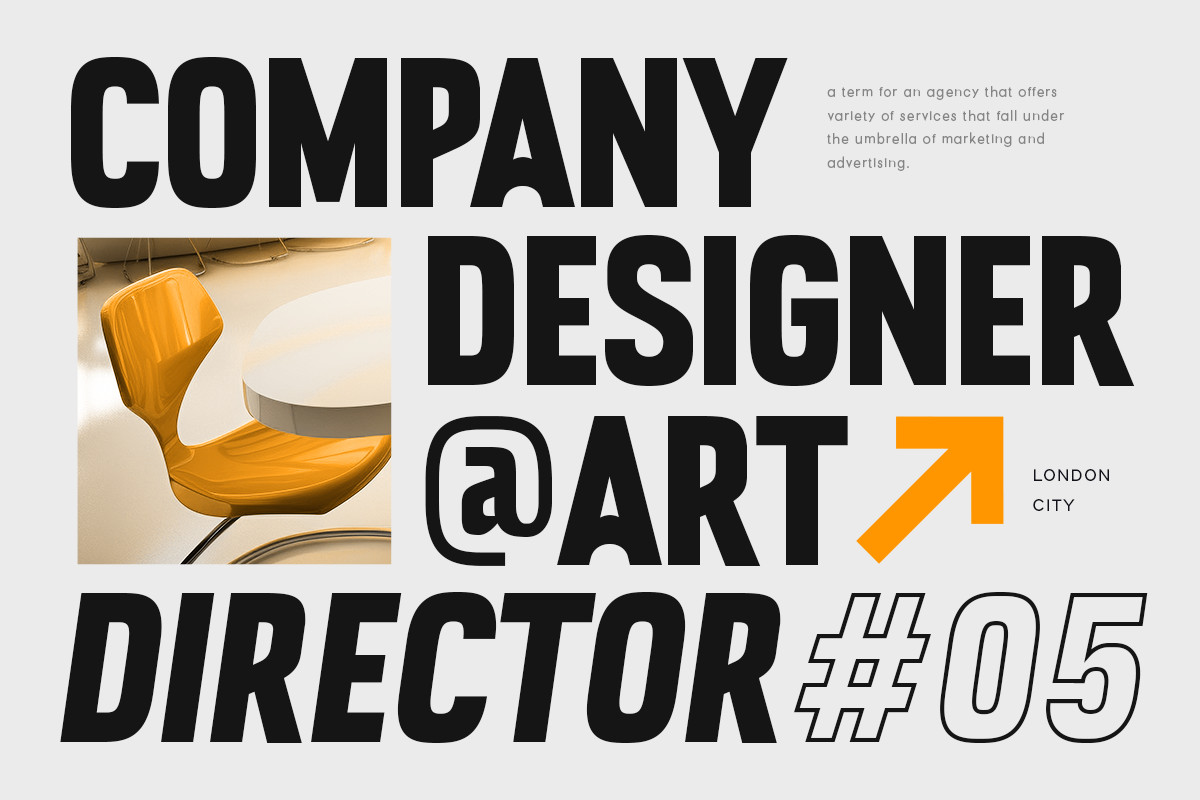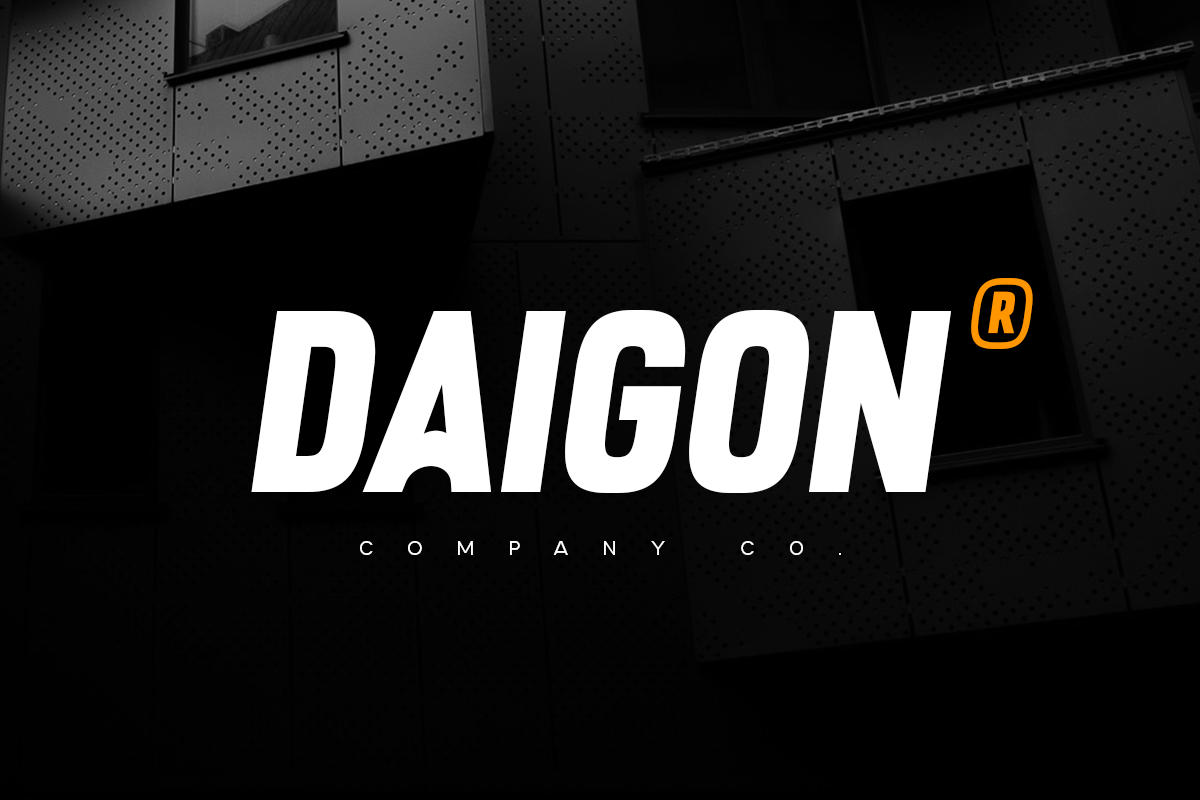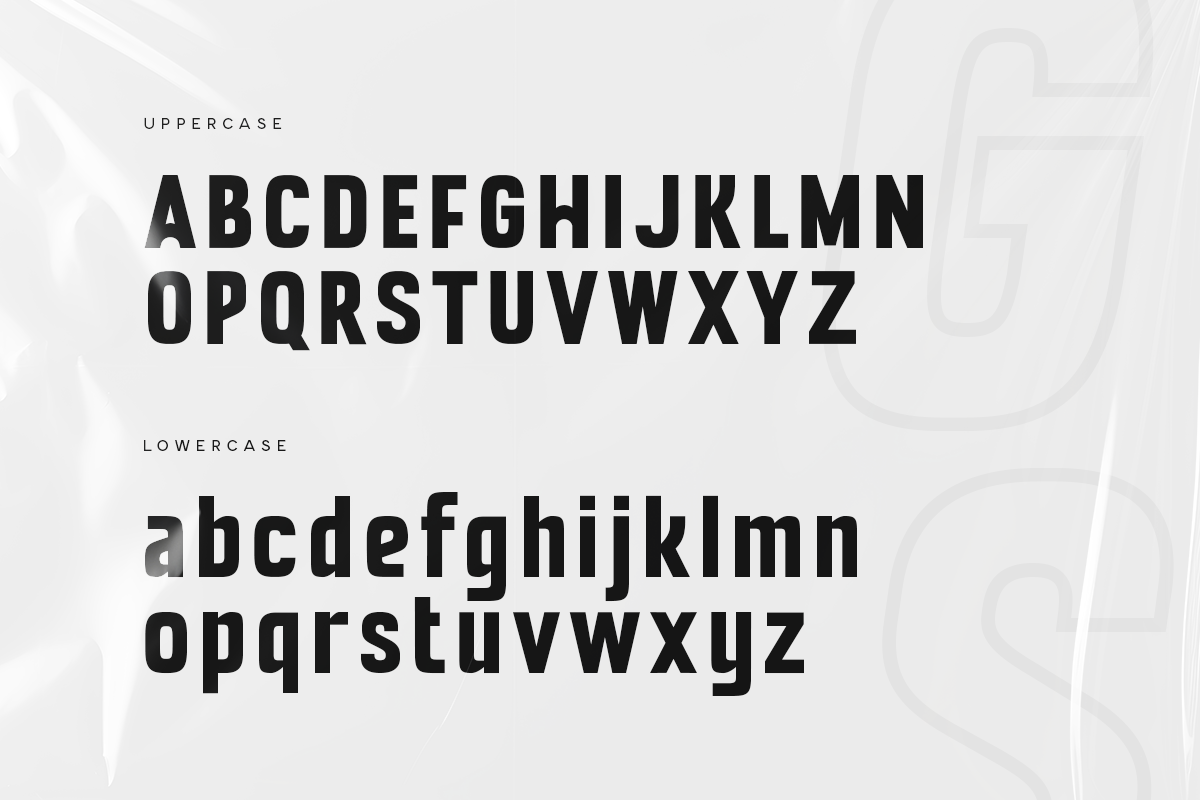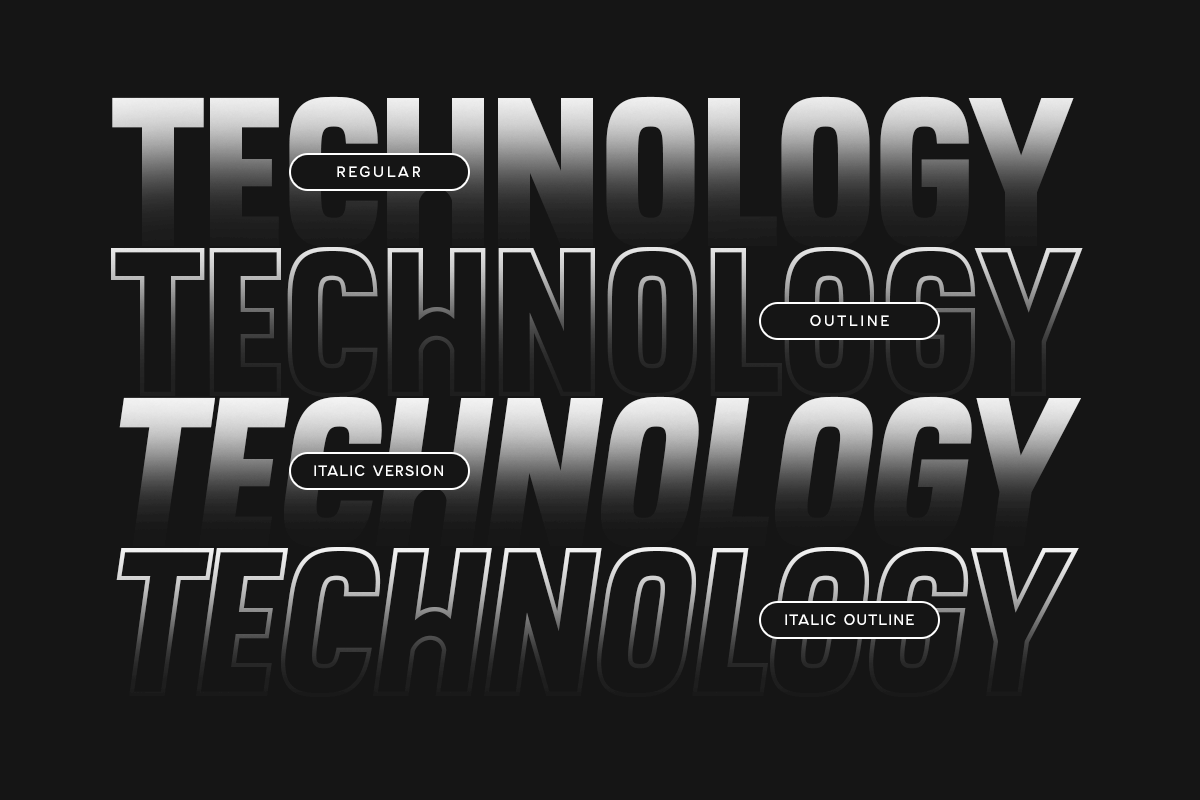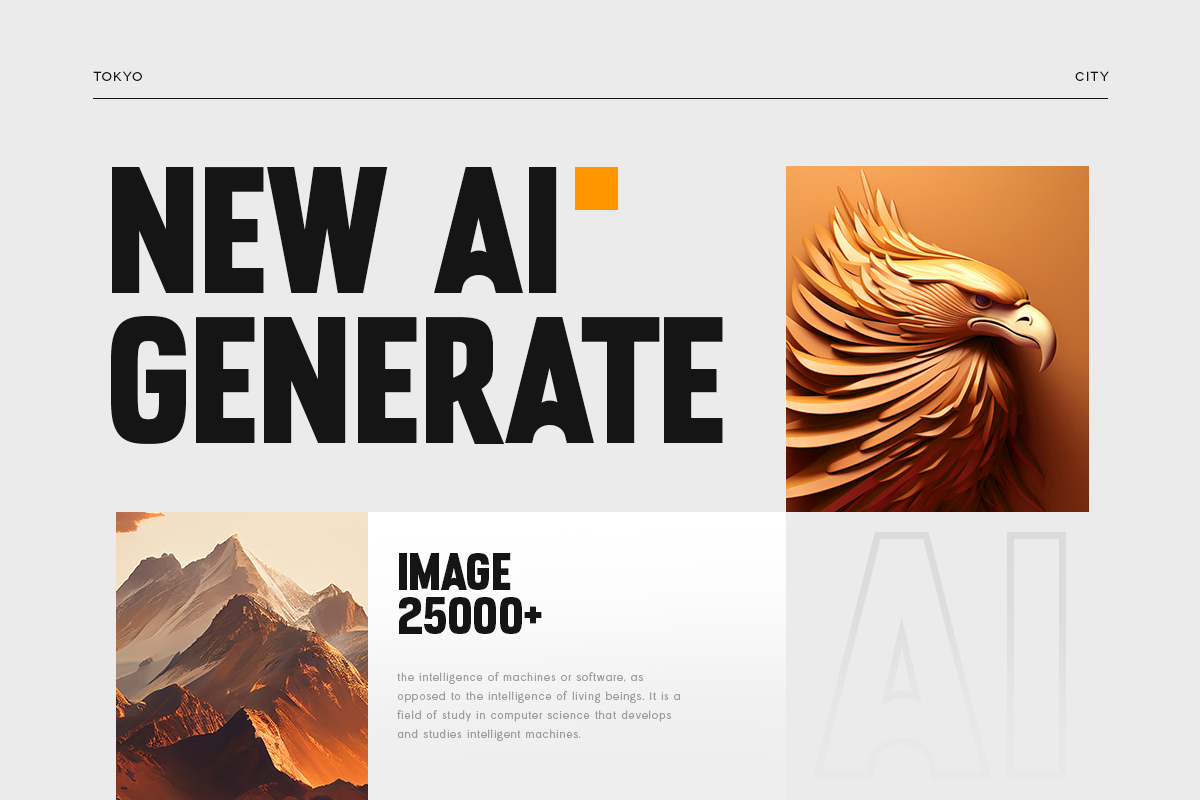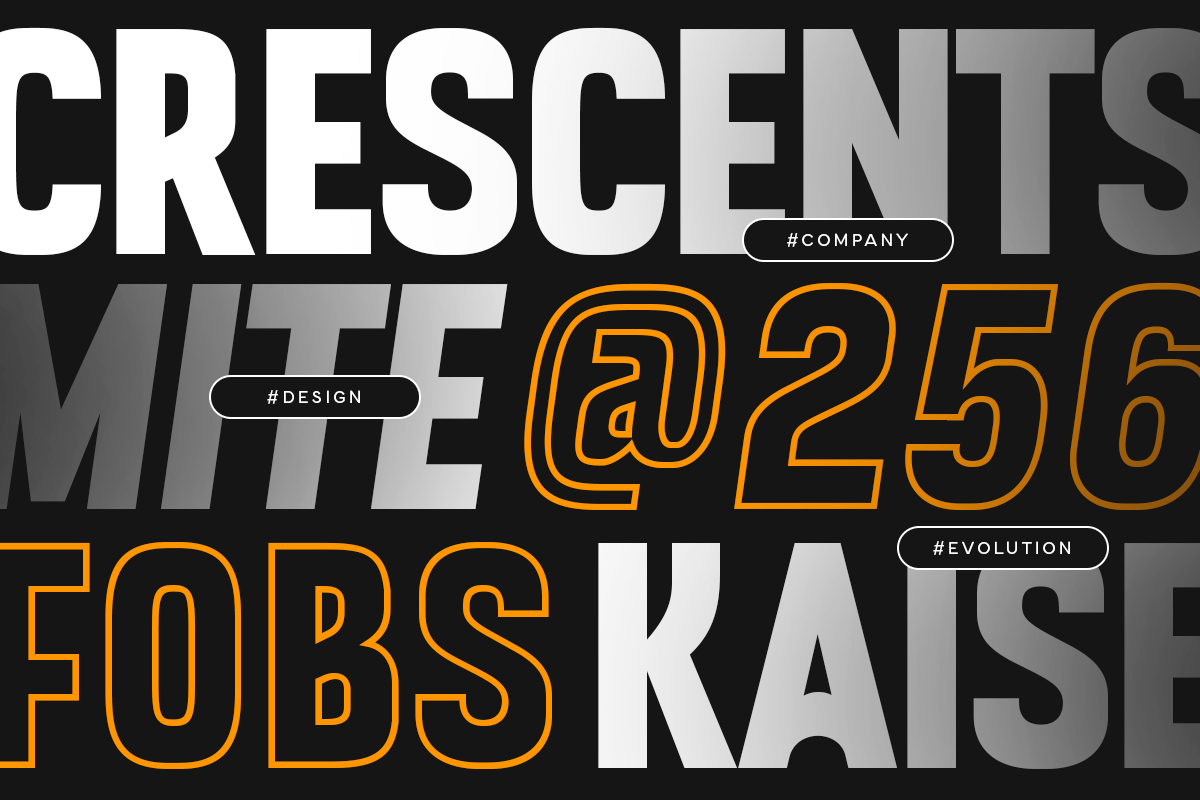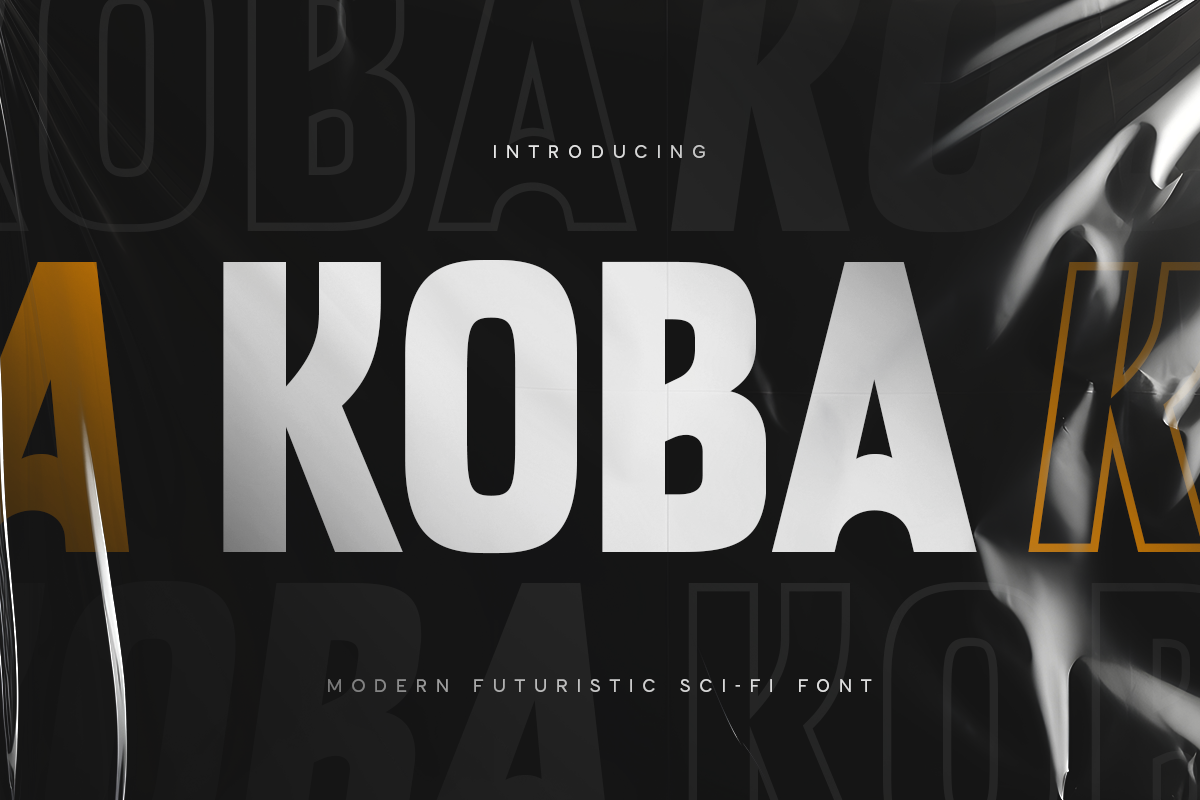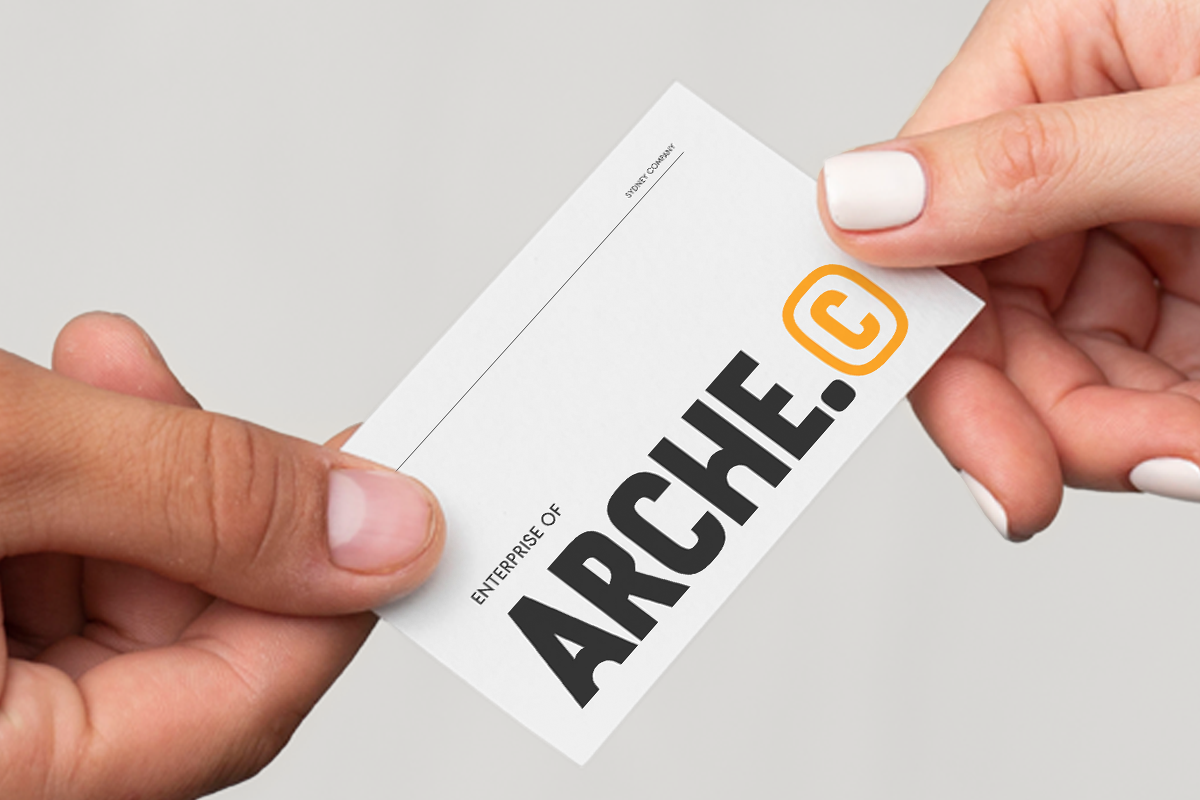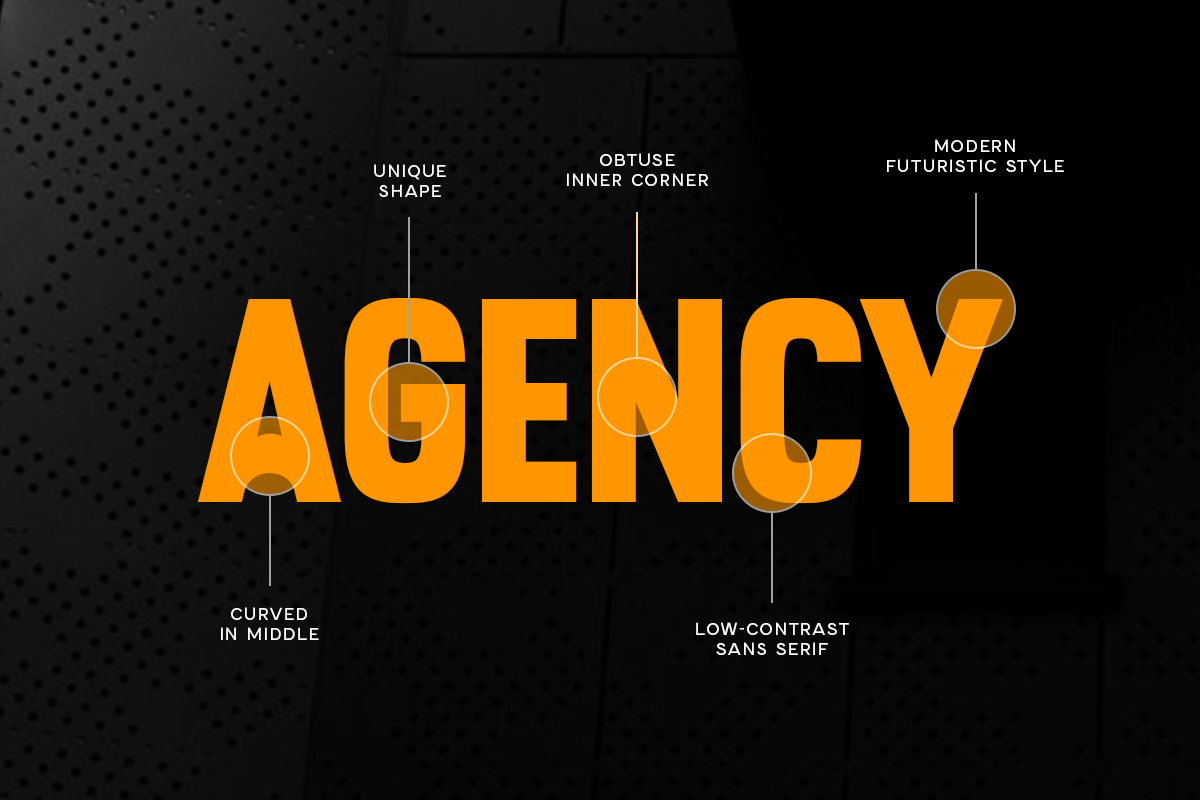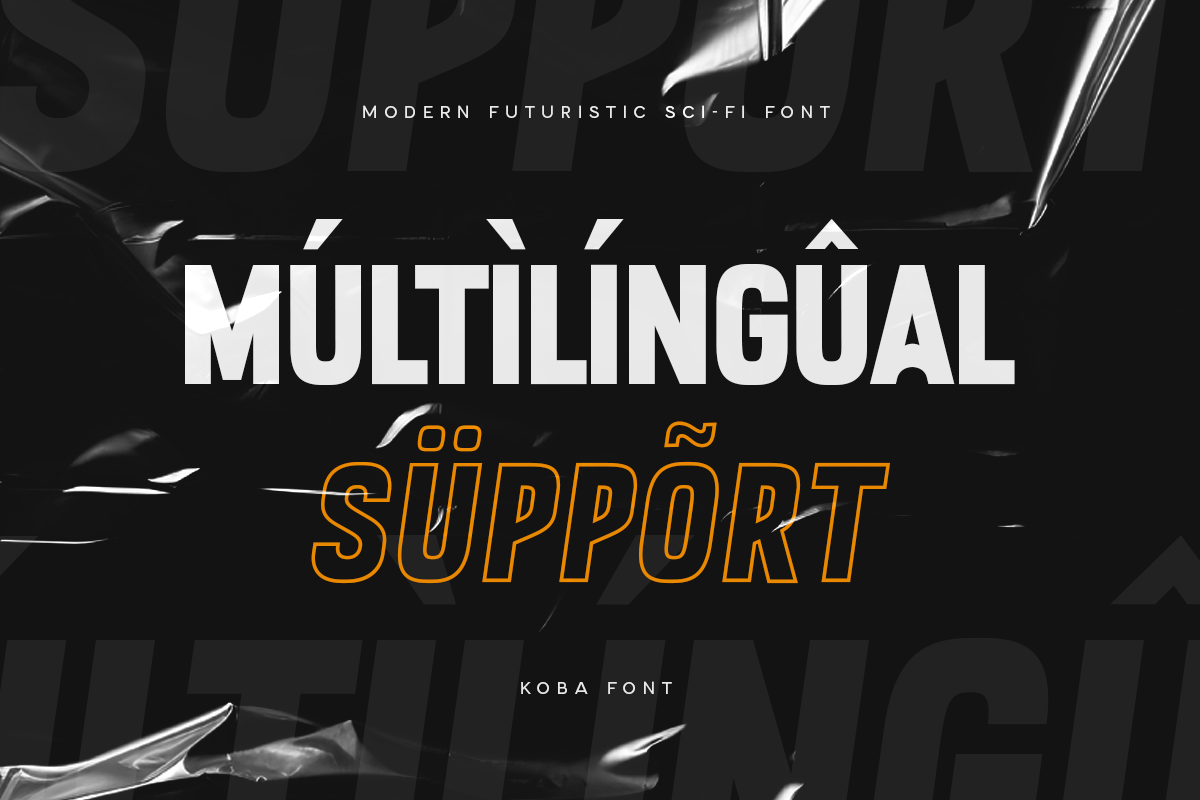
KOBA - Modern Brutalism Logo Font
Koba is a Modern Brutalism Logo Font is a modern font with a minimalist, unique and have value for branding, font that you can combine to get any variations and unique shapes easily just in seconds with choose variation of them. It is a sans serif font with minimalist style that perfect for branding projects, logo, poster designs, social media posts, advertisements, product packaging, product designs, label, photography, watermark, invitation, stationery, and any projects, it makes with a high level of legibility.
- Character set A-Z (Uppercase & Lowercase)